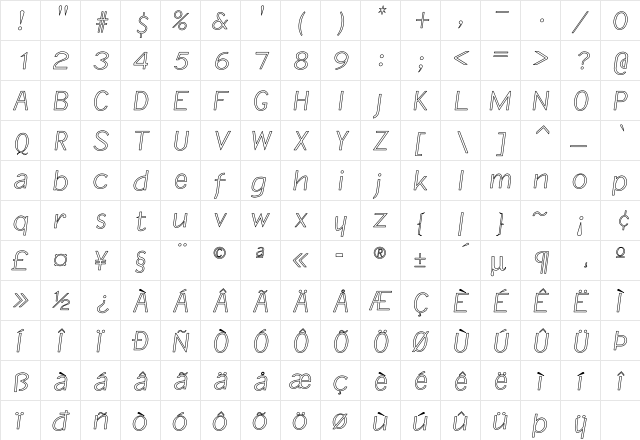
Memo Ho Regular
Design Context for Memo Ho Typeface
Memo Ho takes a measured approach to typography — its balanced proportions and neutral character make it a reliable workhorse for both digital and print work.